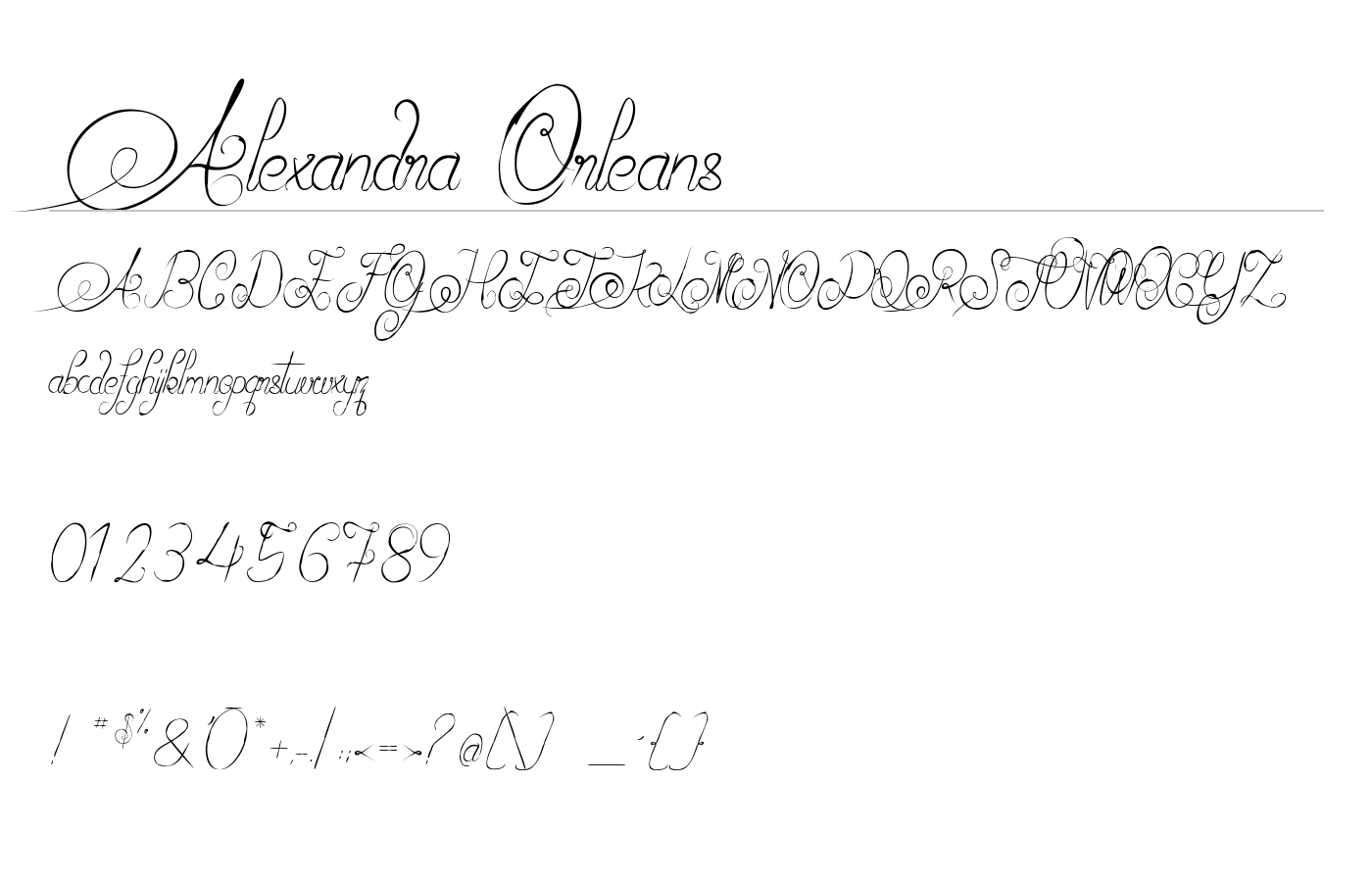
Alexandra Orleans is an elegant, highly decorative script font characterized by delicate, flowing lines and intricate swirls, giving it a refined and graceful appearance. Its thin strokes and ornamental uppercase letters make it ideal for sophisticated branding, wedding invitations, or luxury packaging where a touch of classic, artistic flair is desired. This font excels in display settings, adding a sense of romance and elegance to any design.
Alexandra Orleans Font
About Alexandra Orleans Font